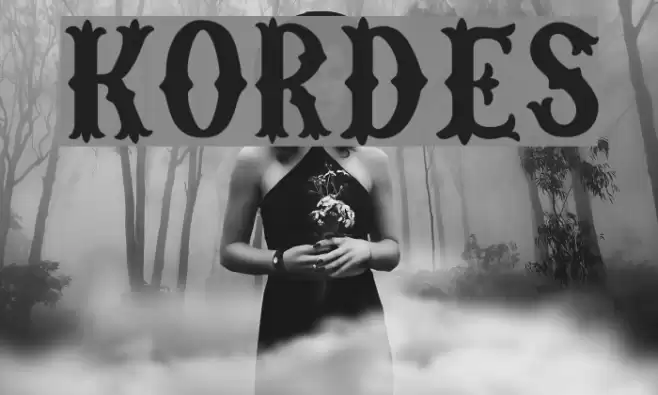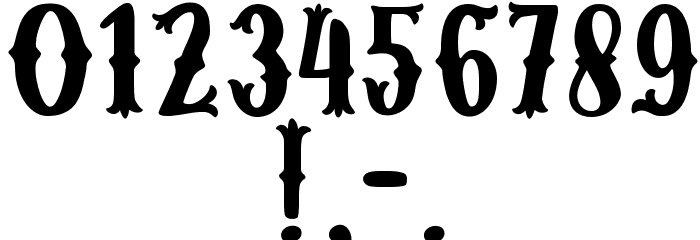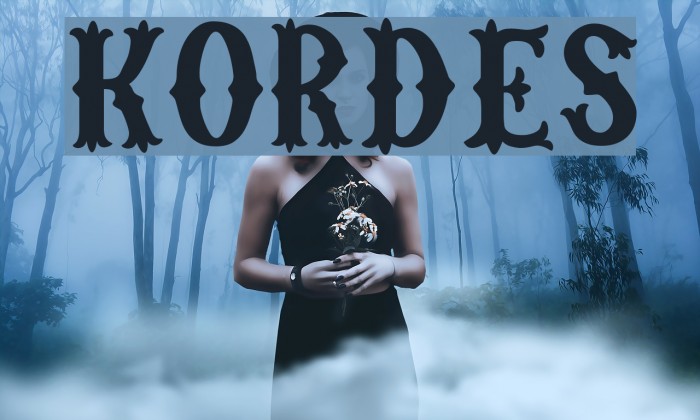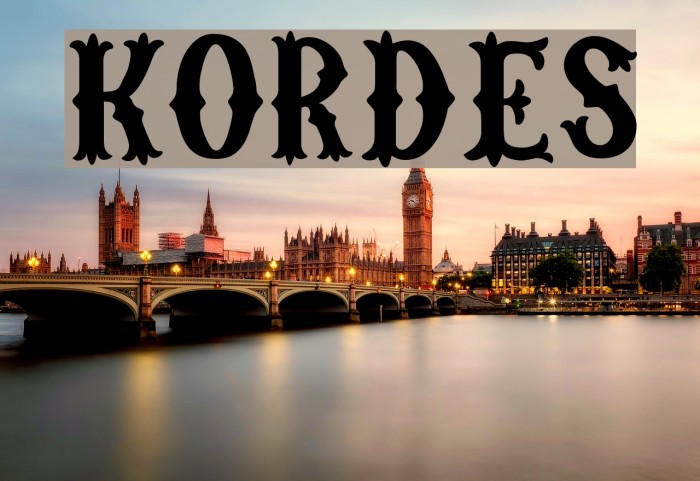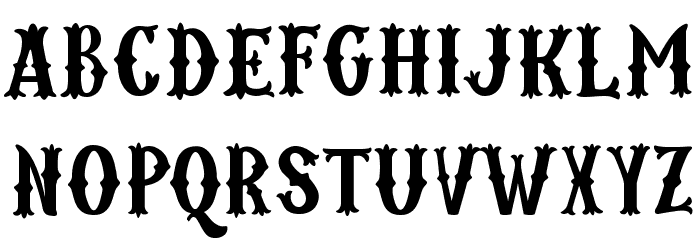
Kordes Font
Kordes Description
This font features a bold and decorative style with a distinct vintage flair. Each character is adorned with unique, ornate serifs that give it a dramatic and eye-catching appearance. The uppercase letters are particularly striking, with intricate details that suggest a sense of elegance and sophistication. The numbers and special characters maintain this ornate style, ensuring consistency across all glyphs. The overall design is reminiscent of old-world charm, making it suitable for projects that require a touch of historical or classical aesthetics. The font's boldness ensures high visibility, making it ideal for standout headlines or titles.
A bold, decorative font with vintage, ornate serifs from Uncategorized fonts.
- Proposed Projects: Ideal for vintage-themed posters, book covers, branding, and event invitations.
- Overall Style: Vintage